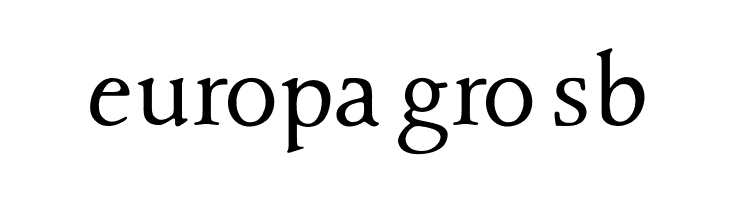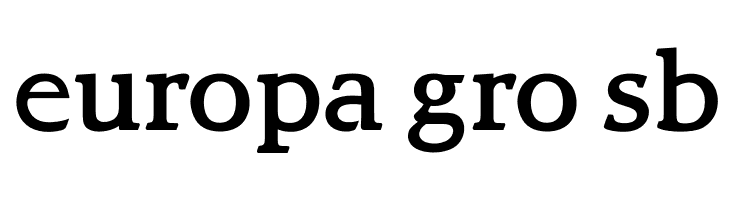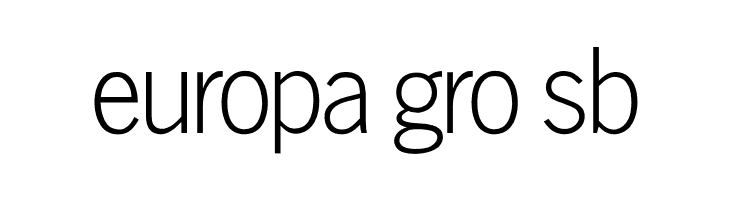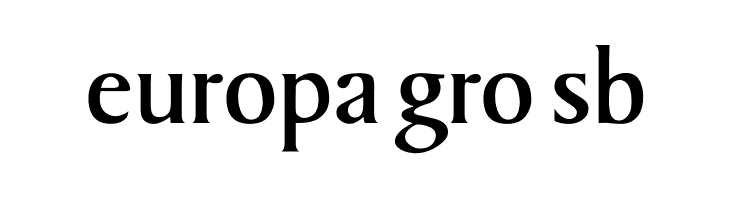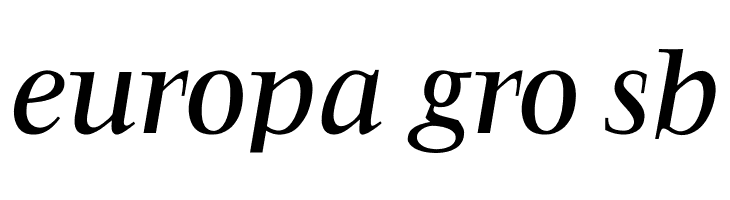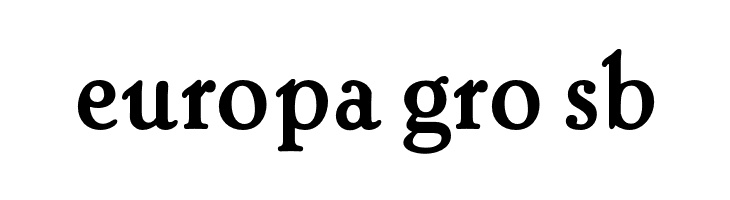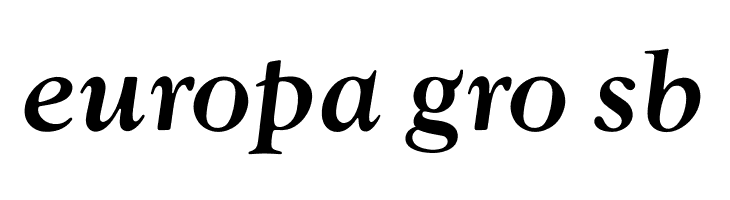
• OPTIBriteText-Medium
A classic serif typeface with elegant strokes and medium weight.
• OPTIBari-Medium
A classic serif font with medium weight and moderate contrast, offering elegance and readability.
• OPTINewsGothicLight
A clean, modern sans-serif font with a light weight and excellent readability.
• OPTIKeene-Medium
A classic serif typeface with medium weight, offering a balanced and readable appearance.
• OPTIHollandseSemiBoldAg
A classic serif font with bold strokes and a semi-bold weight, offering elegance and readability.
• OPTIDeRoos-SemiBold
A classic serif font with a semi-bold weight, combining elegance and readability.
• OPTIJake
A tall, narrow font with a sleek, modern design and consistent character height.
• OPTIFavrileMedium-Italic
An elegant serif font with a classic italic style and medium weight.
• OPTILothario-Medium
A classic serif font with elegant curves and medium weight.
• OPTIwtcGoudy-MediumItalic
A classic serif font with medium weight and italic style, offering elegance and readability.